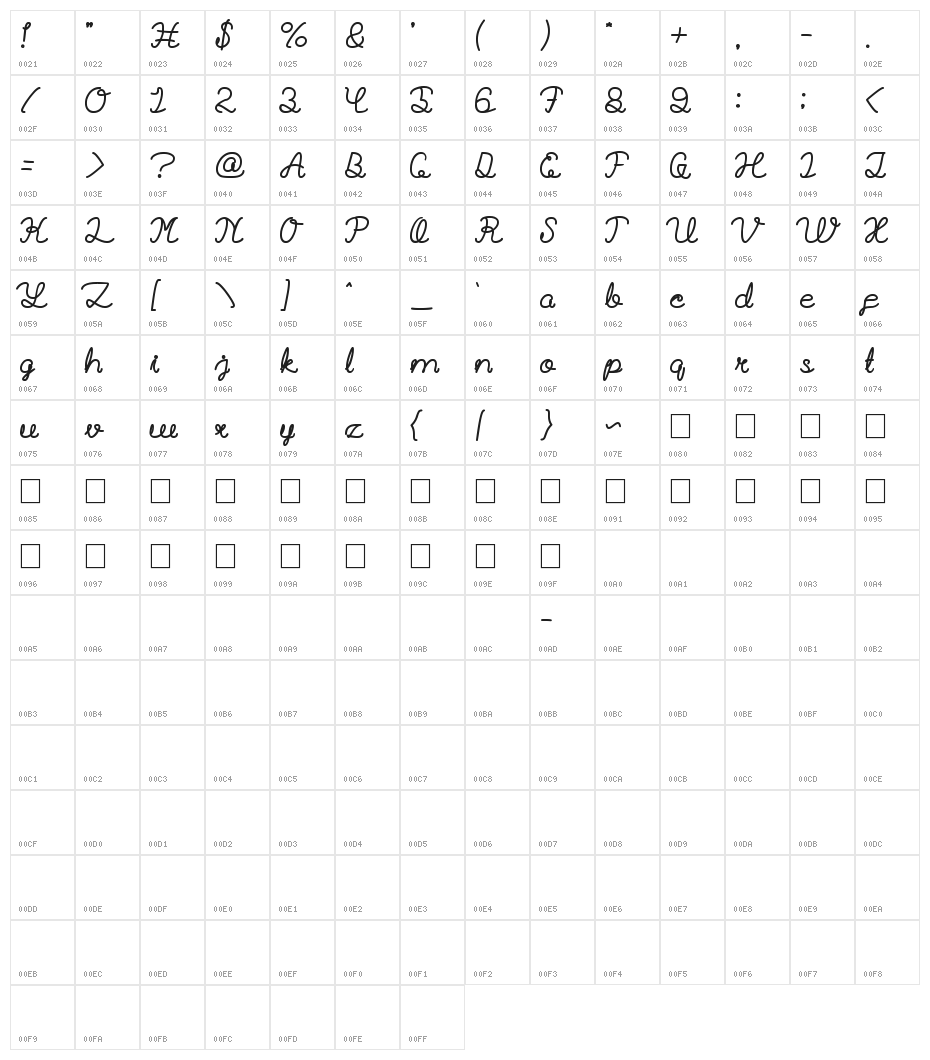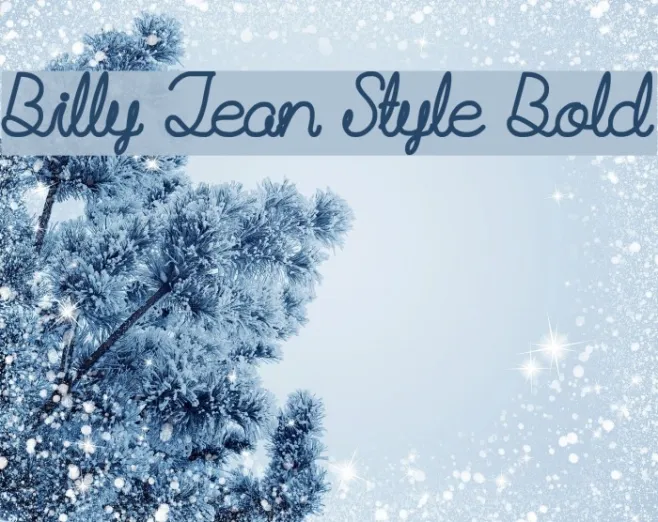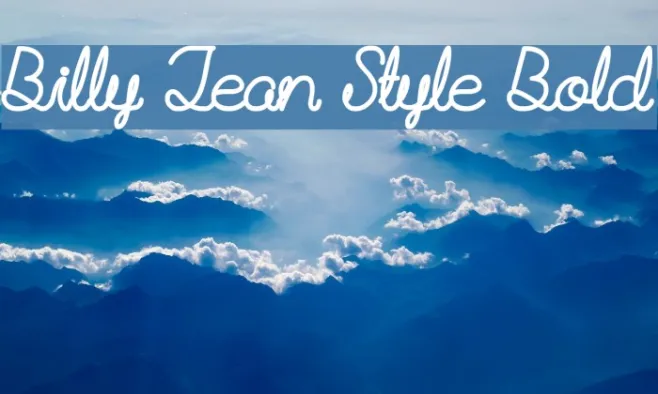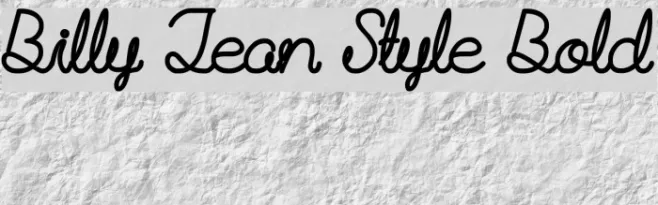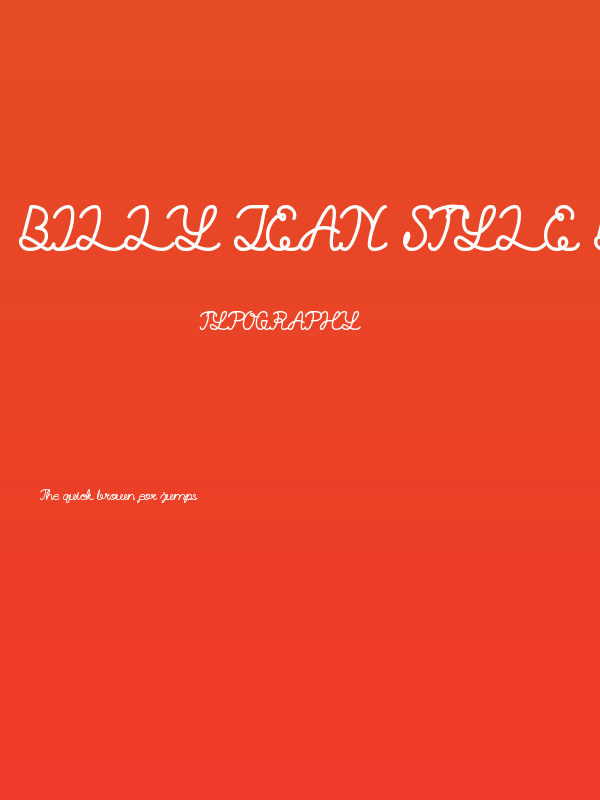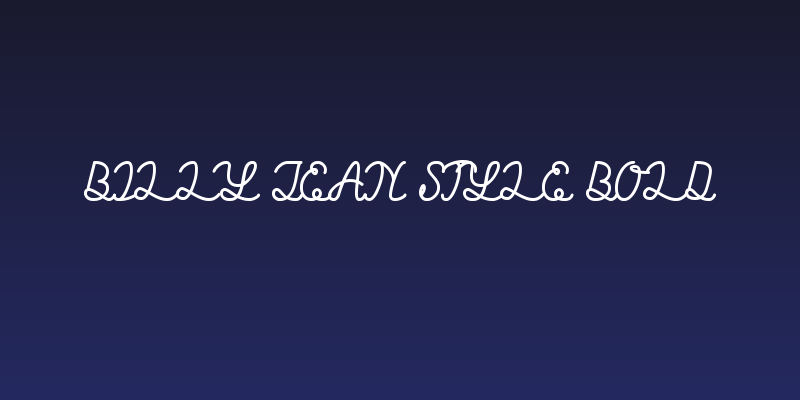
Billy Jean Style Bold Font
Billy Jean Style Bold Description
This font features a bold, cursive style with a playful and energetic flair. The characters are interconnected, giving a sense of fluidity and movement. The uppercase letters maintain a consistent height, while the lowercase letters have a slightly exaggerated loop, adding to the font's whimsical nature. The numbers and special characters are designed to match the overall style, ensuring a cohesive look. The strokes are thick and consistent, providing a strong visual impact. This font is ideal for projects that require a lively and dynamic appearance.
| Proposed Projects | Ideal for greeting cards, playful branding, children's books, and creative posters. |